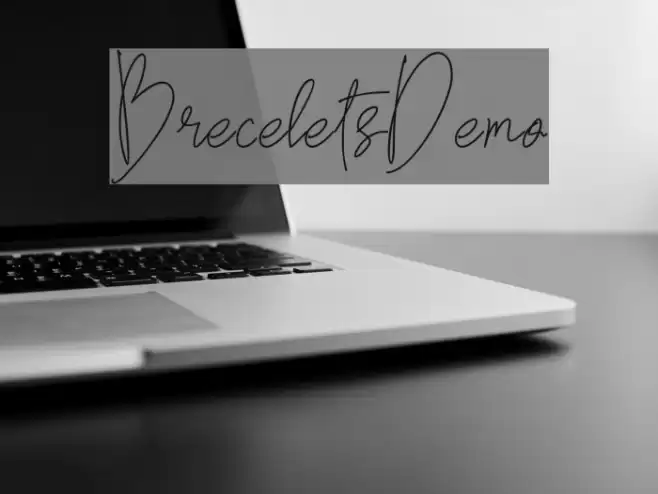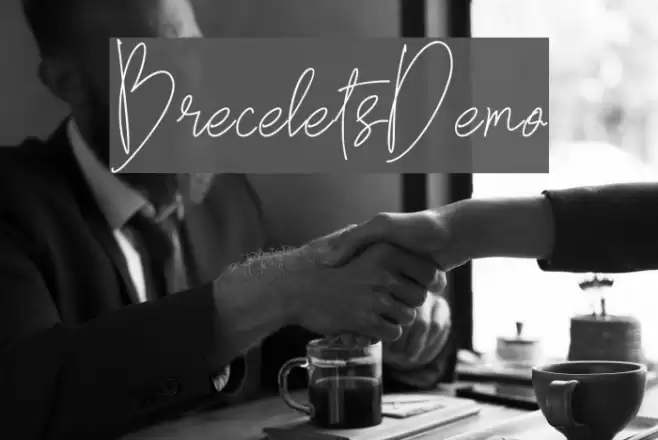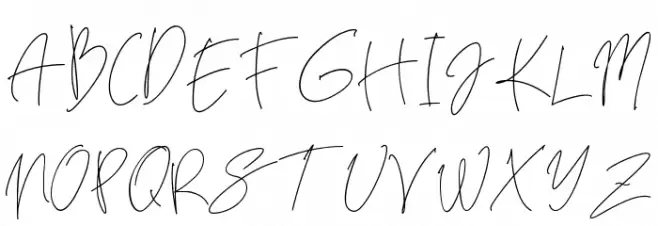
BreceletsDemo Font
BreceletsDemo Description
This font features a delicate, handwritten style with a flowing, cursive appearance. The uppercase letters are tall and slender, with a slight slant that adds a sense of elegance and movement. The lowercase letters maintain a consistent style, with smooth, connected strokes that enhance the handwritten feel. The overall design is airy and light, with a playful yet sophisticated charm. The characters are well-spaced, ensuring readability while maintaining the artistic flair. This font is ideal for projects that require a personal touch, such as invitations, greeting cards, or branding materials that aim to convey a sense of elegance and creativity.
A delicate, handwritten cursive font with an elegant and flowing style from Uncategorized fonts.
- Proposed Projects: Ideal for wedding invitations, personal branding, greeting cards, and artistic projects.
- Overall Style: Elegant, Artistic
- Use Case: Invitations, Greeting cards, Personal branding